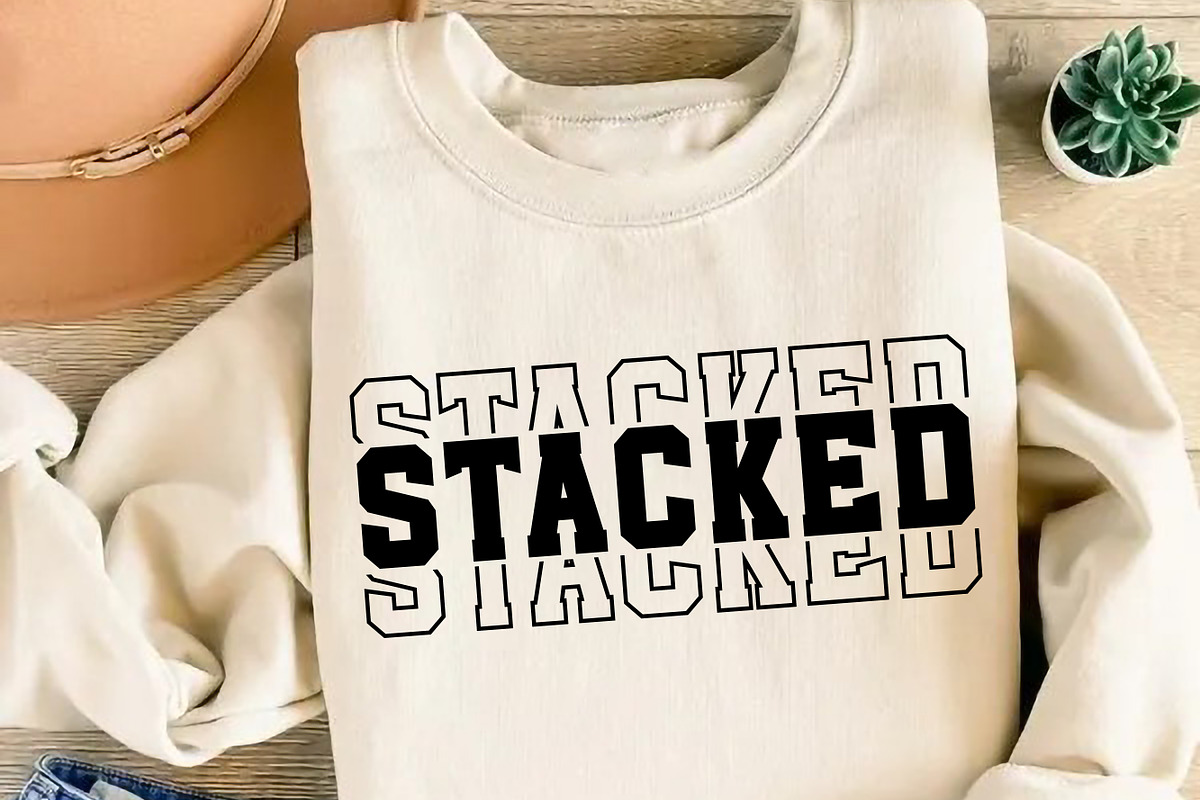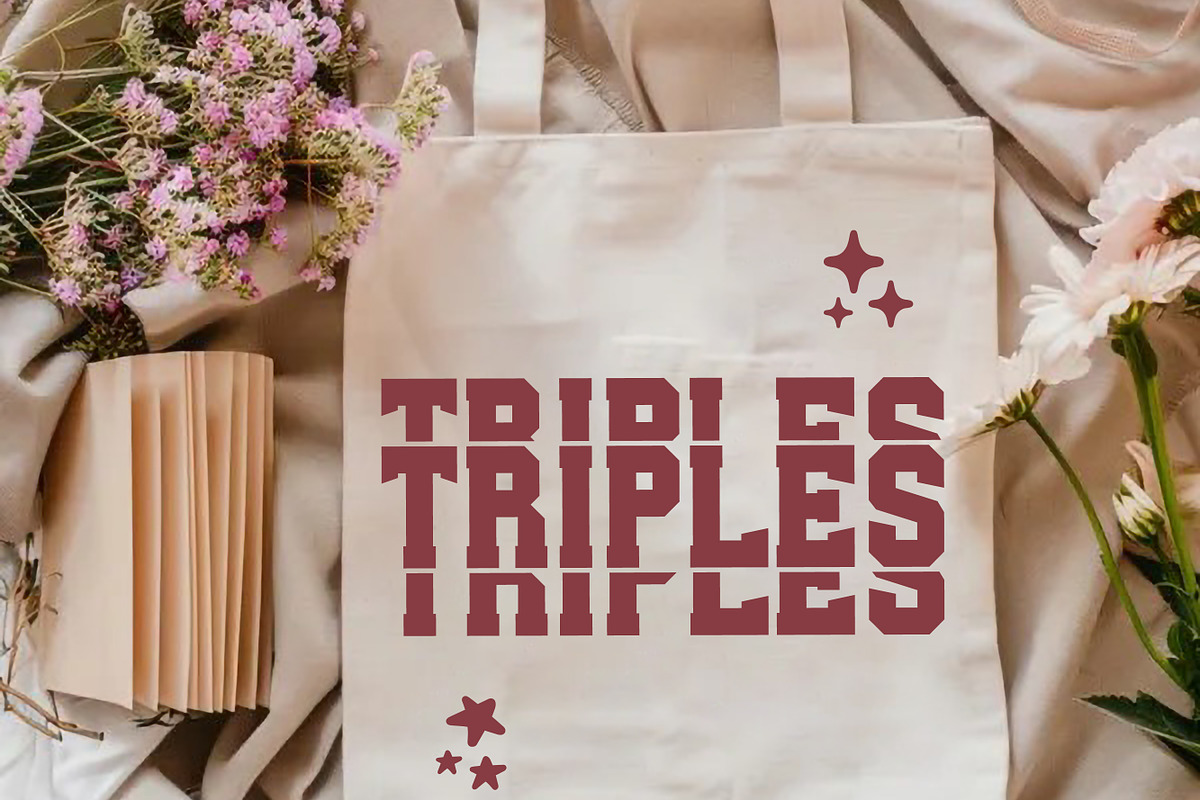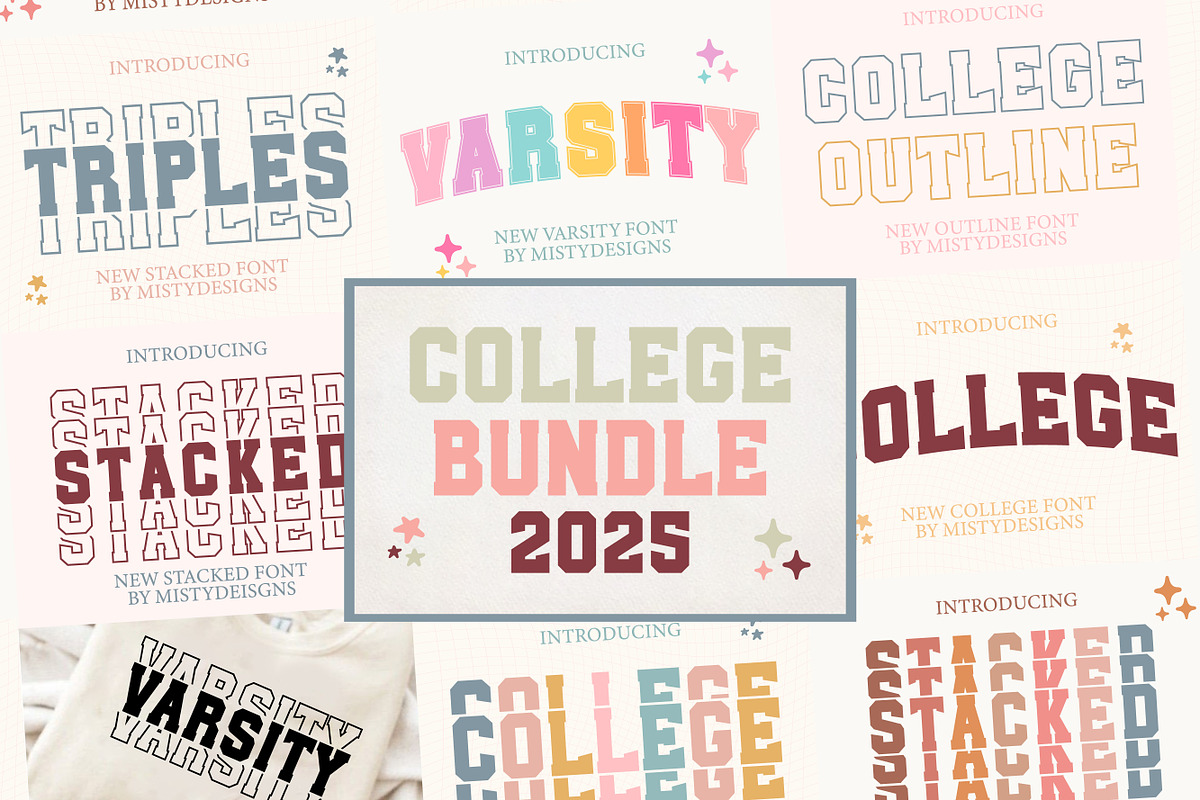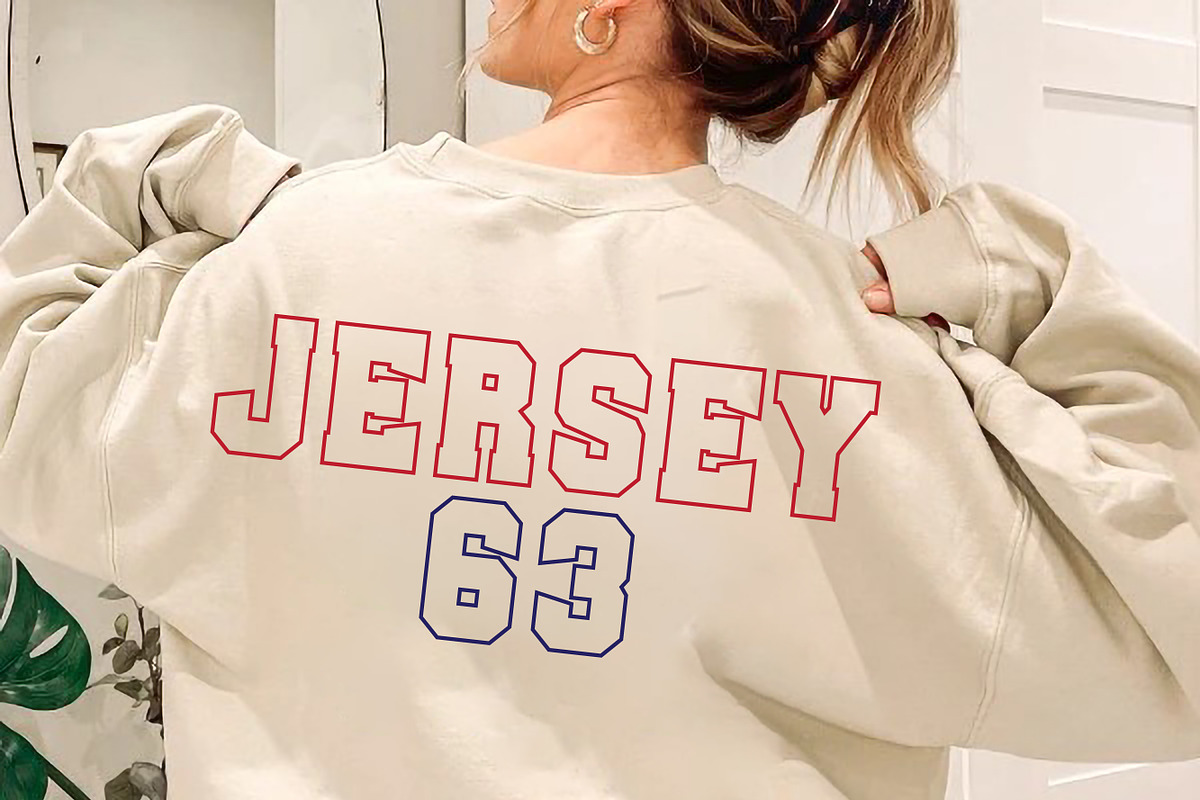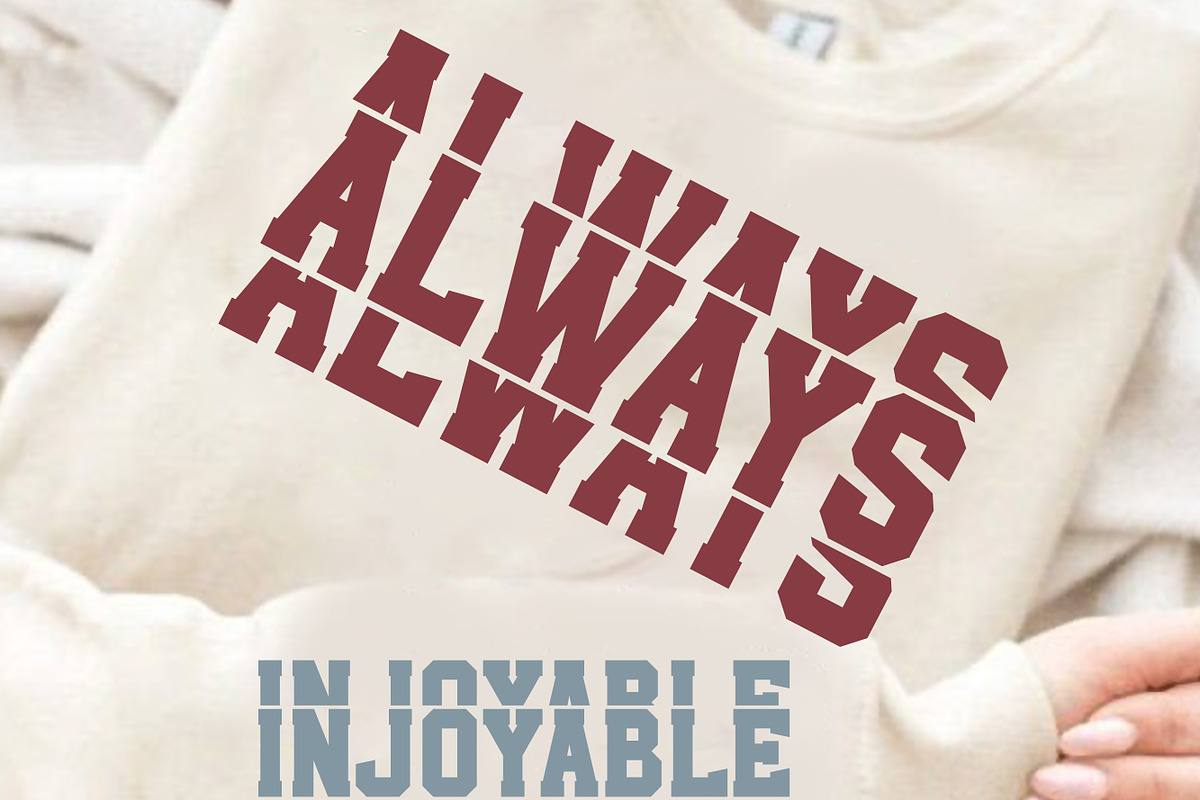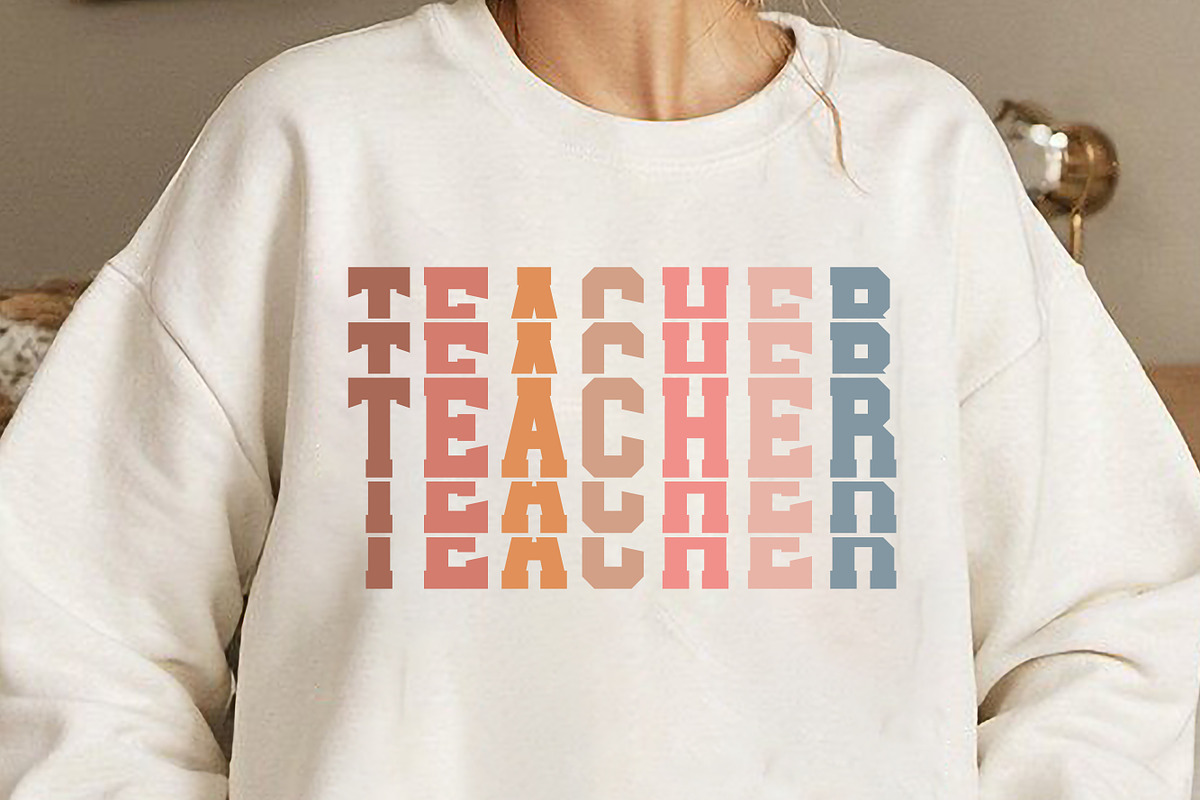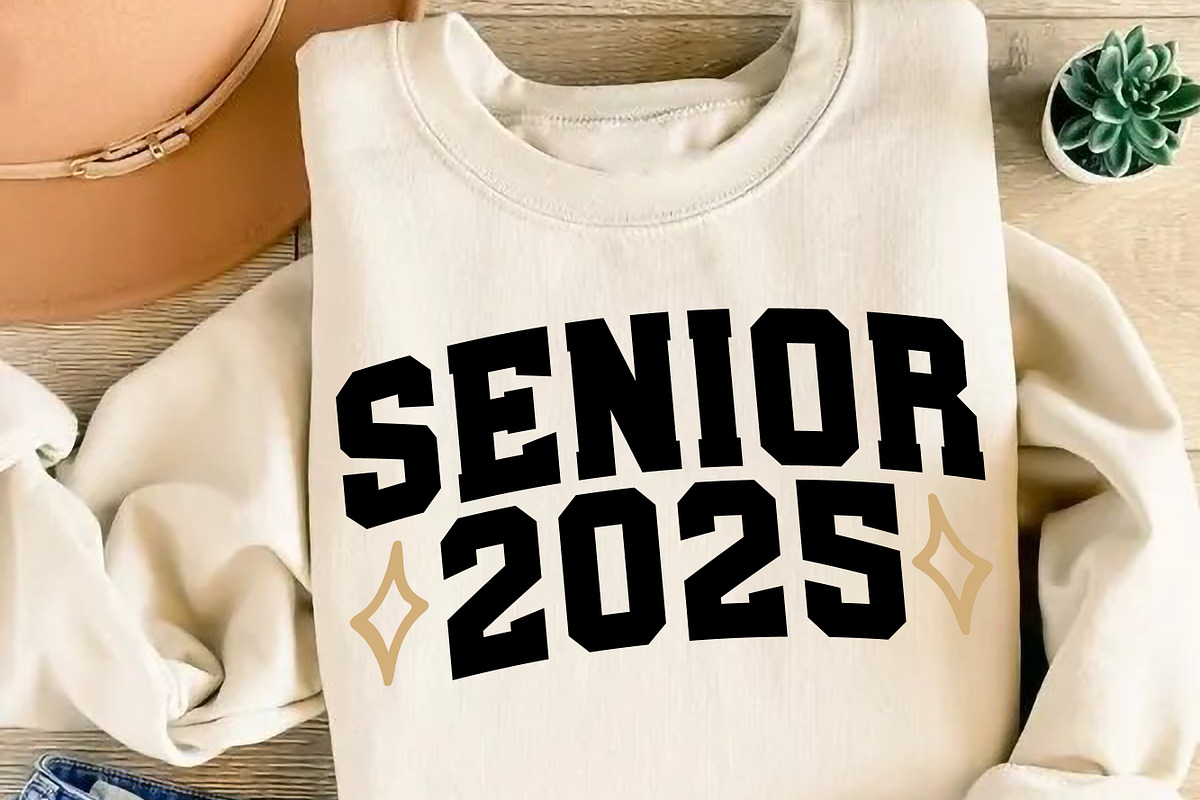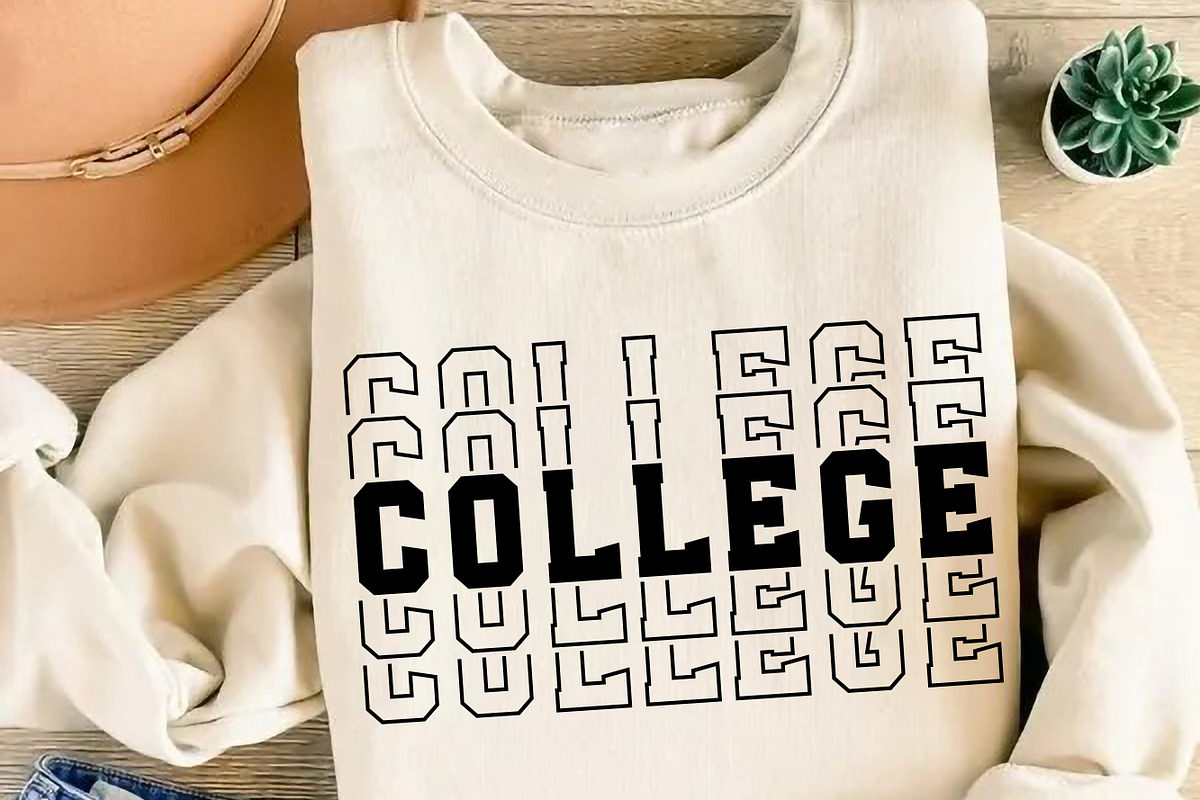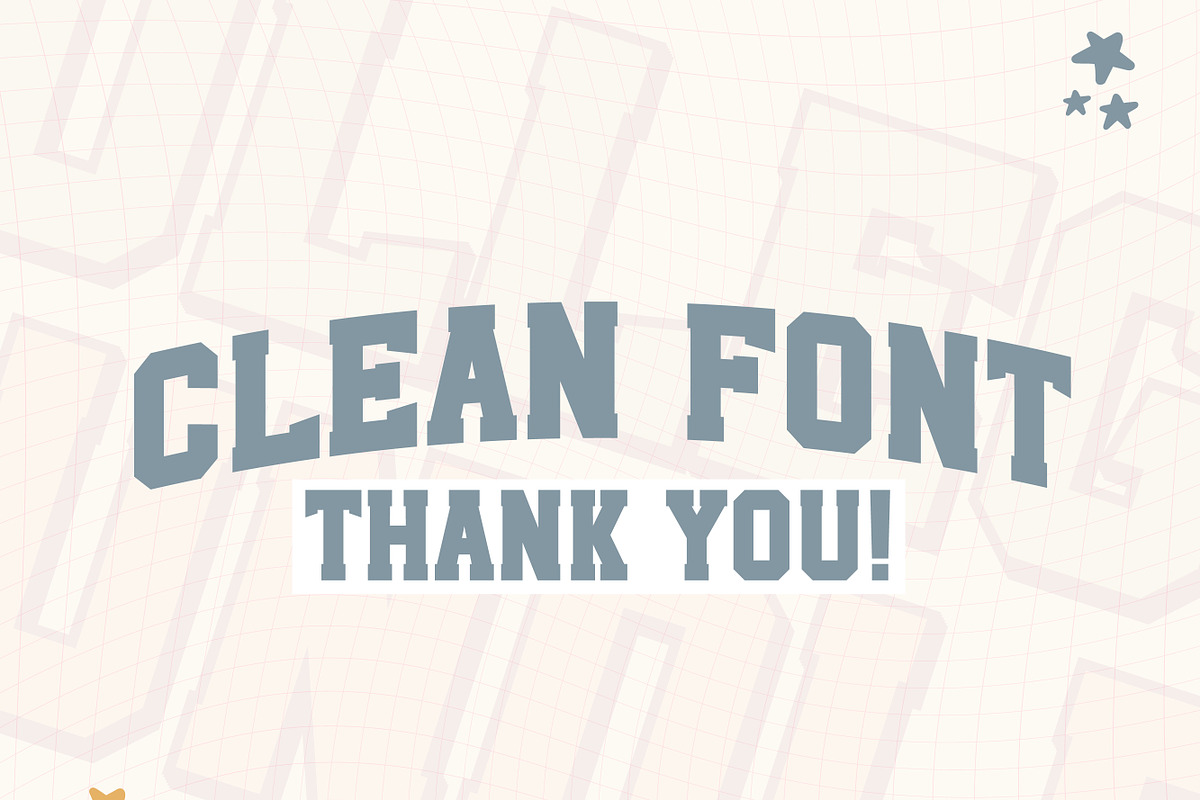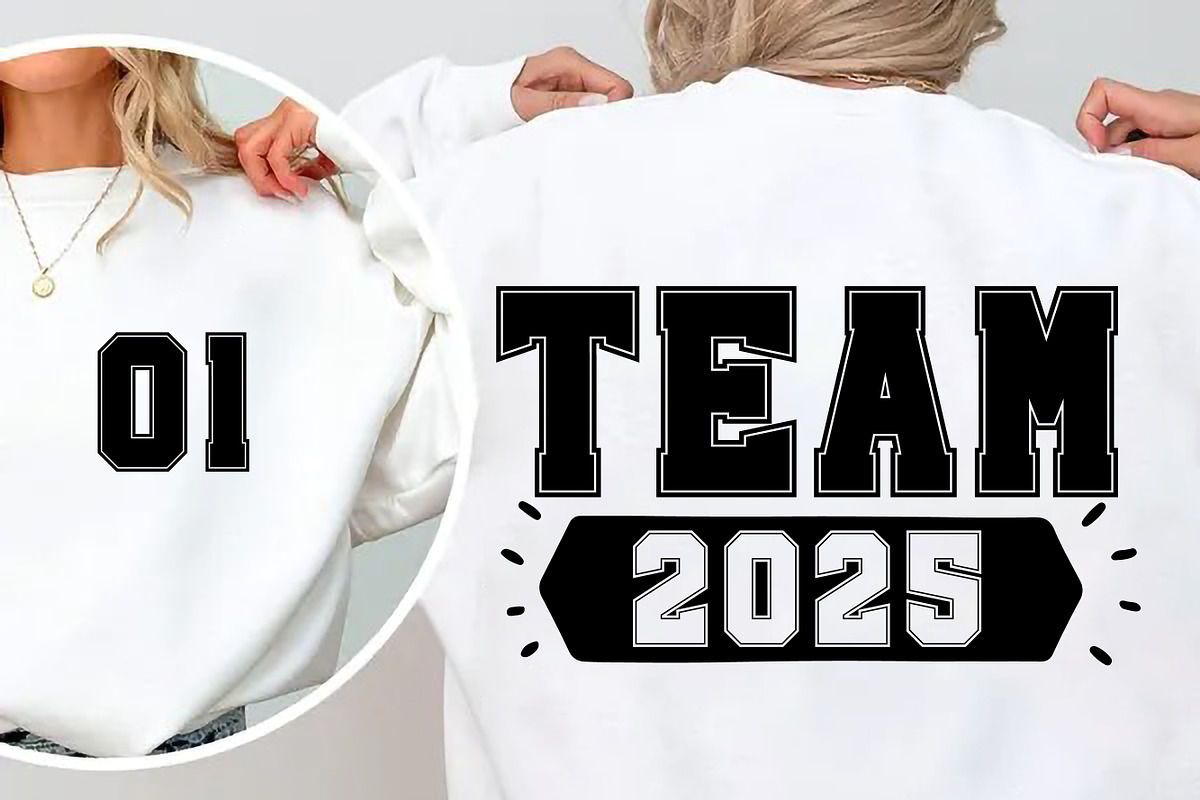
College alphabets with Stacked Font
College Set is an incredibly cool display font inspired by college and sports. Every letter has a retro sporty and college-style design. See the previews above to get some inspiration on how to use them. Perfect for sports enthusiasts and college fans, such as logotypes, watermarks, posters, branding, promotions, product packaging, team jerseys, party invitations, home decor items and more. This font is sure to make a bold statement.